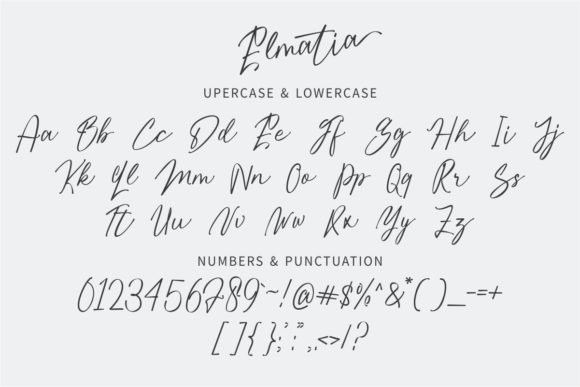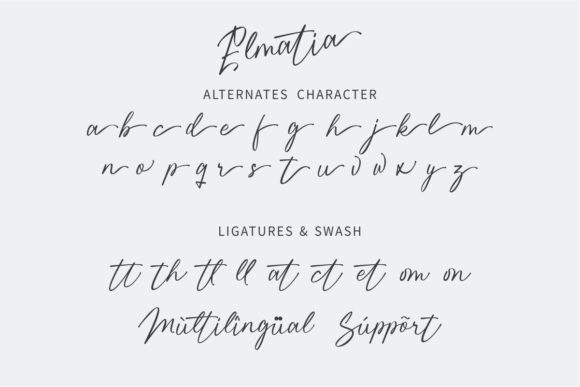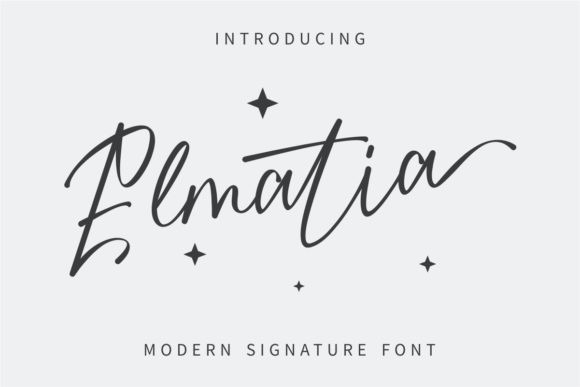
Elmatia Script Font
Elmatia is a sweet, delicate and friendly script font, that will embellish each of your creations. This font is PUA
encoded which means you can access all of the glyphs and swashes with ease!